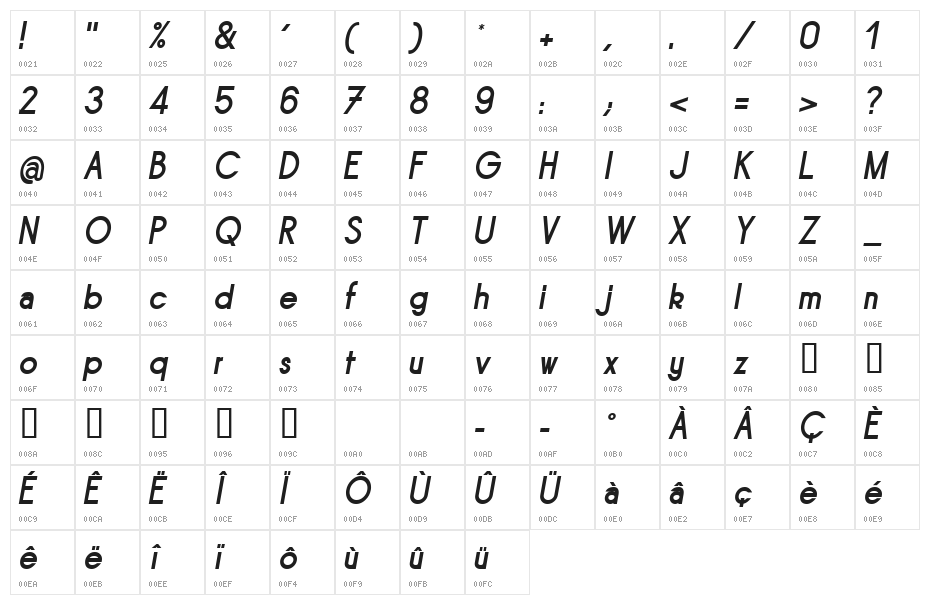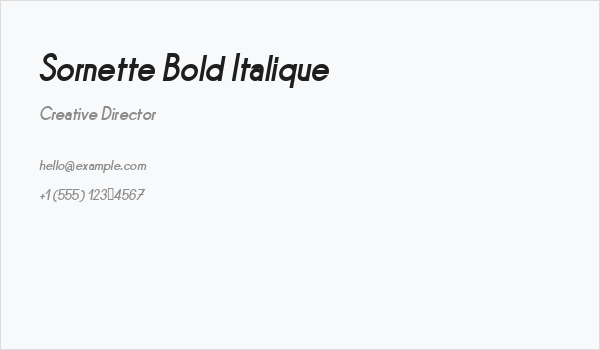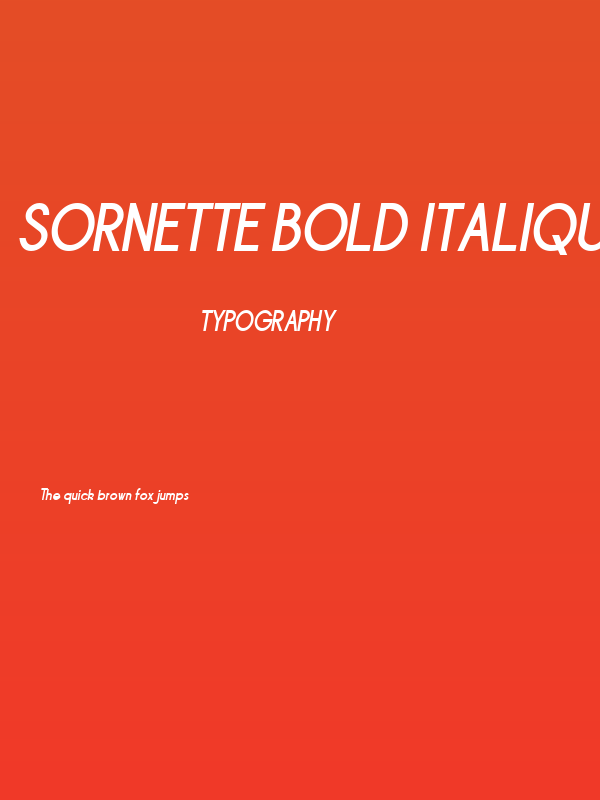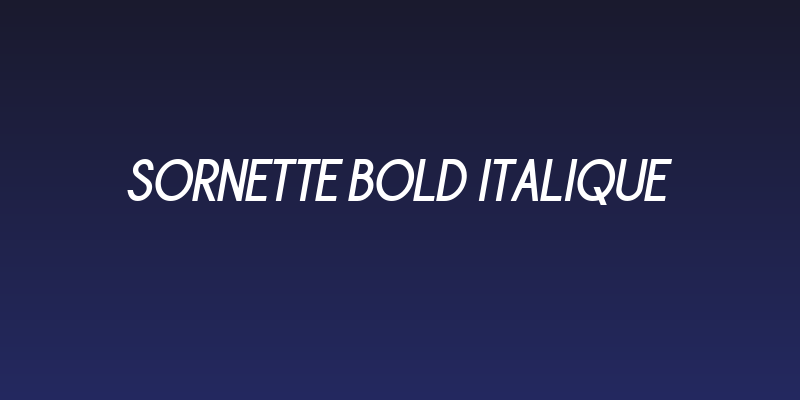
Sornette Bold Italique Font
Sornette Bold Italique Description
This font features a bold and italicized style, combining a modern and sleek appearance with a dynamic slant. The characters are well-defined with a consistent stroke weight, providing a sense of strength and stability. The uppercase and lowercase letters maintain a uniform height, ensuring readability and balance. The numerals are clear and distinct, matching the overall boldness of the font. Special characters are included, offering versatility for various design needs. The italic angle adds a sense of motion and energy, making it suitable for attention-grabbing headlines or impactful branding.
Use CaseHeadlines, Logos, Branding
Proposed ProjectsIdeal for branding, advertising, headlines, and modern web design.